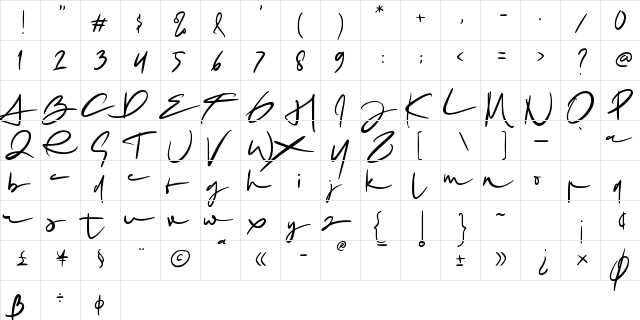
Mrs. Santhi Demo Version Regular
| Designer | Abo Daniel 2019 |
Design Context for Mrs. Santhi Demo Version Typeface
Mrs. Santhi Demo Version is a composed and adaptable typeface that performs quietly and consistently across a wide range of design contexts.